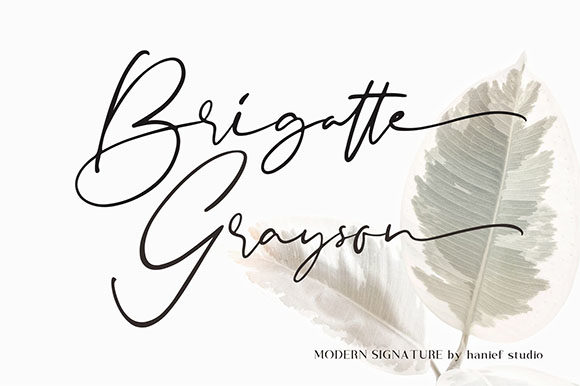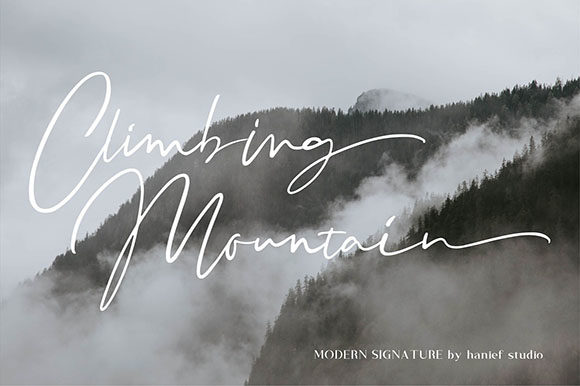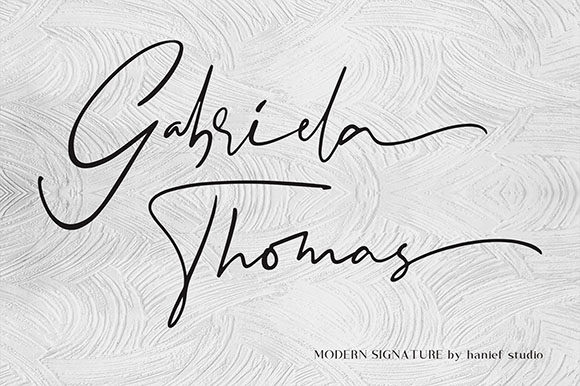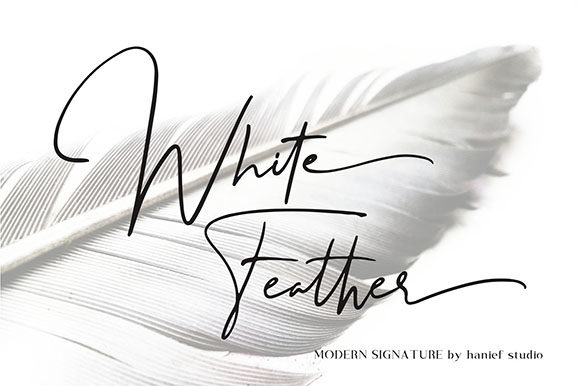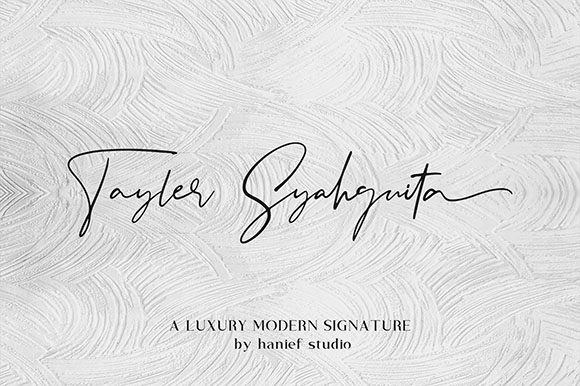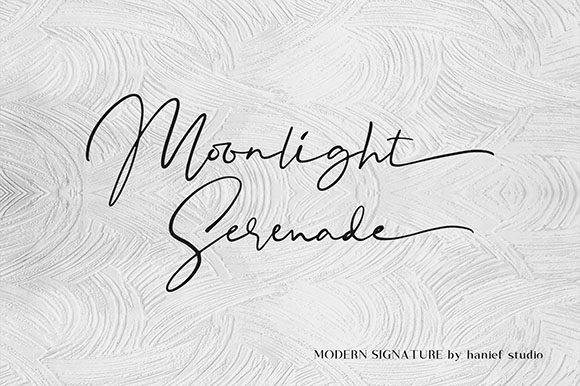
The Perfect Sign of Authenticity: Introducing Binetta Signature Font
Have you ever been browsing through your old sketchbooks or notebooks, reminiscing about the countless hours spent brainstorming ideas and sketching out your vision? It’s in those moments of pure creativity that the true essence of your artistic identity is revealed. And what better way to showcase that authenticity than with a custom signature font that screams ‘me’? Enter Binetta Signature Font, a modern and stylish font designed to radiate the unique essence of its creator.
For designers and creatives, having a distinct signature font can make all the difference in leaving a lasting impression. It’s a chance to express your personality and artistic voice in a way that’s both personal and professional. With Binetta Signature Font, you’ll have the perfect tool to elevate your branding and leave a lasting mark on the world of design.
Binetta Signature Font Key Features
- Unique Characteristics: Hand-drawn design with a modern, elegant feel; perfect for logos, signatures, and titles
- Font Style: Script, Casual
Binetta Signature Font Review
I recently had the chance to work with the Binetta Signature Font, and I must say it’s a unique addition to any design project. ✨ One of the things I appreciate about this font is its elegant and refined look. The Binetta Signature Font is perfect for creating a luxurious and sophisticated vibe in your designs.
Some of the key features that stood out to me include:
- High-end feel: The Binetta Signature Font has a polished and refined look that screams high-end.
- Scalability: This font works well in a variety of sizes, from small to large.
- Style versatility: The Binetta Signature Font can be used in a range of design projects, from logos to brochures.
- Less legible at very small sizes: While the font is generally scalable, it can become a bit hard to read at extremely small sizes.
- Not ideal for casual or playful designs: The Binetta Signature Font is best suited for formal or professional projects.
Overall, I think the Binetta Signature Font is a solid choice for designers looking to add a touch of sophistication to their projects. It’s a bit on the pricey side, but the quality and uniqueness of the font make it well worth the investment.
Use the Binetta Signature Font to add a touch of elegance and sophistication to your designs.
Pair the Binetta Signature Font with other fonts to create a unique and eye-catching combination.